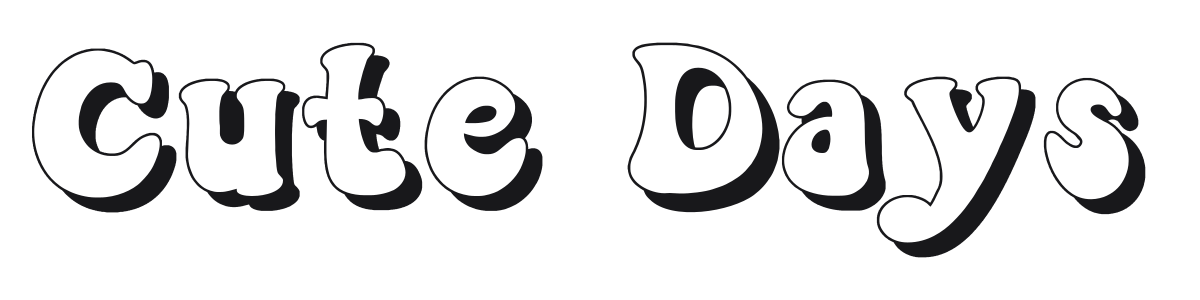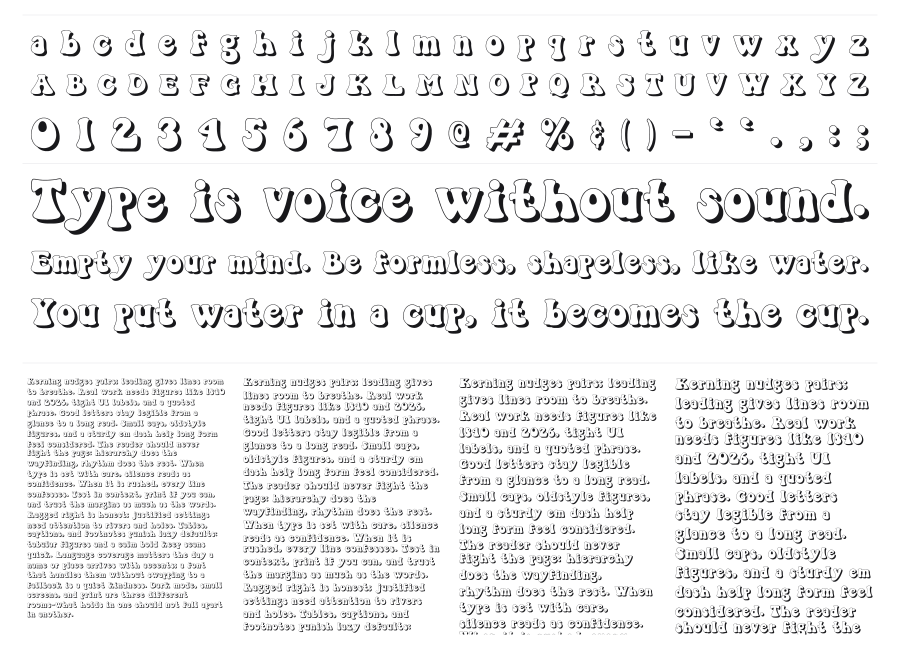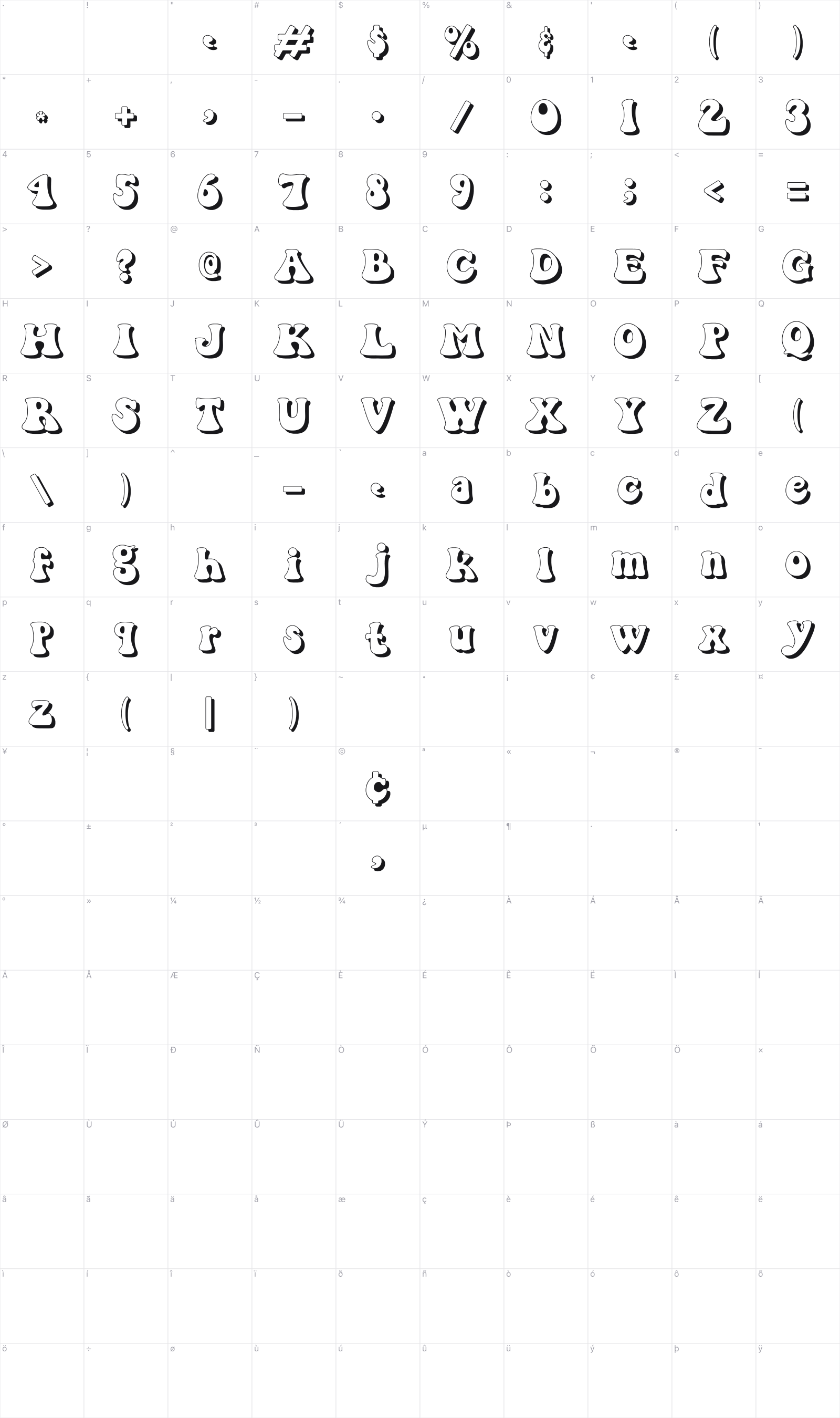
Cute Days
Cute Days is a chunky retro bubble font dripping with 1970s groovy energy. Each character is inflated to maximum roundness, accented with a bold outline and drop shadow that push the three-dimensional effect. It works best large, where the bubbly curves and retro personality can fully land.